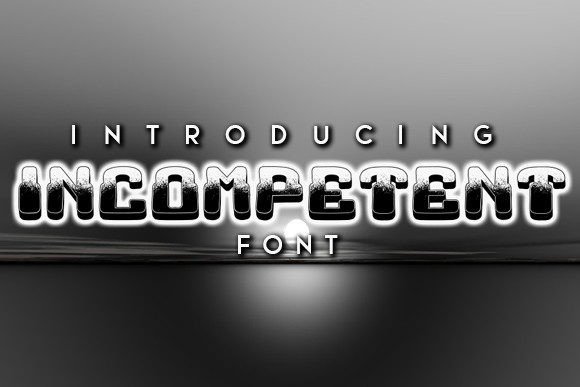
Design like a pro with our Incompetent font, the ultimate choice for your next standout creation. Watch your posters, banners, and t-shirts transform into captivating masterpieces that command attention.
Step into a realm of limitless creativity where Incompetent's striking 3D form adds depth and dimension to your designs. Its captivating presence will make your words dance off the page, leaving an unforgettable impression on all who lay eyes upon it.
Indulge in the artistic freedom that Incompetent offers, knowing that your designs will radiate a touch of uniqueness and sophistication. From the boldest headlines to the most intricate details, Incompetent empowers you to express your ideas with flair and originality.
With its effortless style and undeniable impact, Incompetent is the font that will elevate your designs to new heights. Unleash your imagination and let Incompetent guide you towards creating breathtaking visuals that leave a lasting legacy.